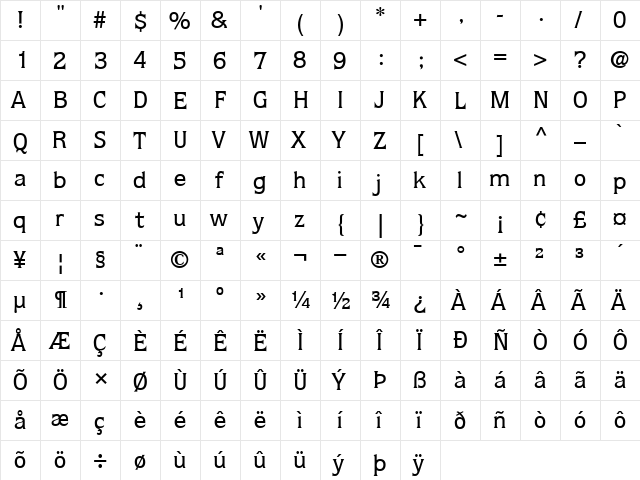
ITCQuorum-Medium Medium
Design Context for ITCQuorum-Medium Typeface
ITCQuorum-Medium takes a measured approach to typography — its balanced proportions and neutral character make it a reliable workhorse for both digital and print work.
Pro Tip: Use ITCQuorum-Medium in both headline and body roles to test its range before committing to a single application.